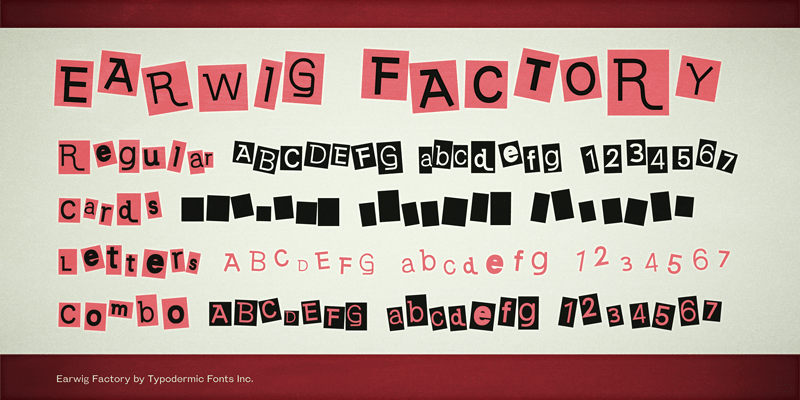
Earwig Factory Regular Font Download. The cards style can be offset to create a drop shadow effect. The text generators section features an array of online tools for you to create and edit text graphics easily online;
Earwig Factory Regular
This font available for windows 7 and mac os in truetype(.ttf) and opentype(.otf) format. Download for free earwig factory regular. The letters and cards styles can be used to create compelling color/texture layers.
Earwig factory regular free font. Font earwig factory with the regular characteristic belongs to the earwig factory. Earwig factory is a dingbat, novelty and kids font family.
Earwig Factory Is A Jumbled Alphabet Mounted On Weird Little Cards.
Font designed by alfonzo97 and free for personal use. About the font earwig factory regular. In opentype savvy applications, letters and numerals are pseudorandomized for a more natural effect.